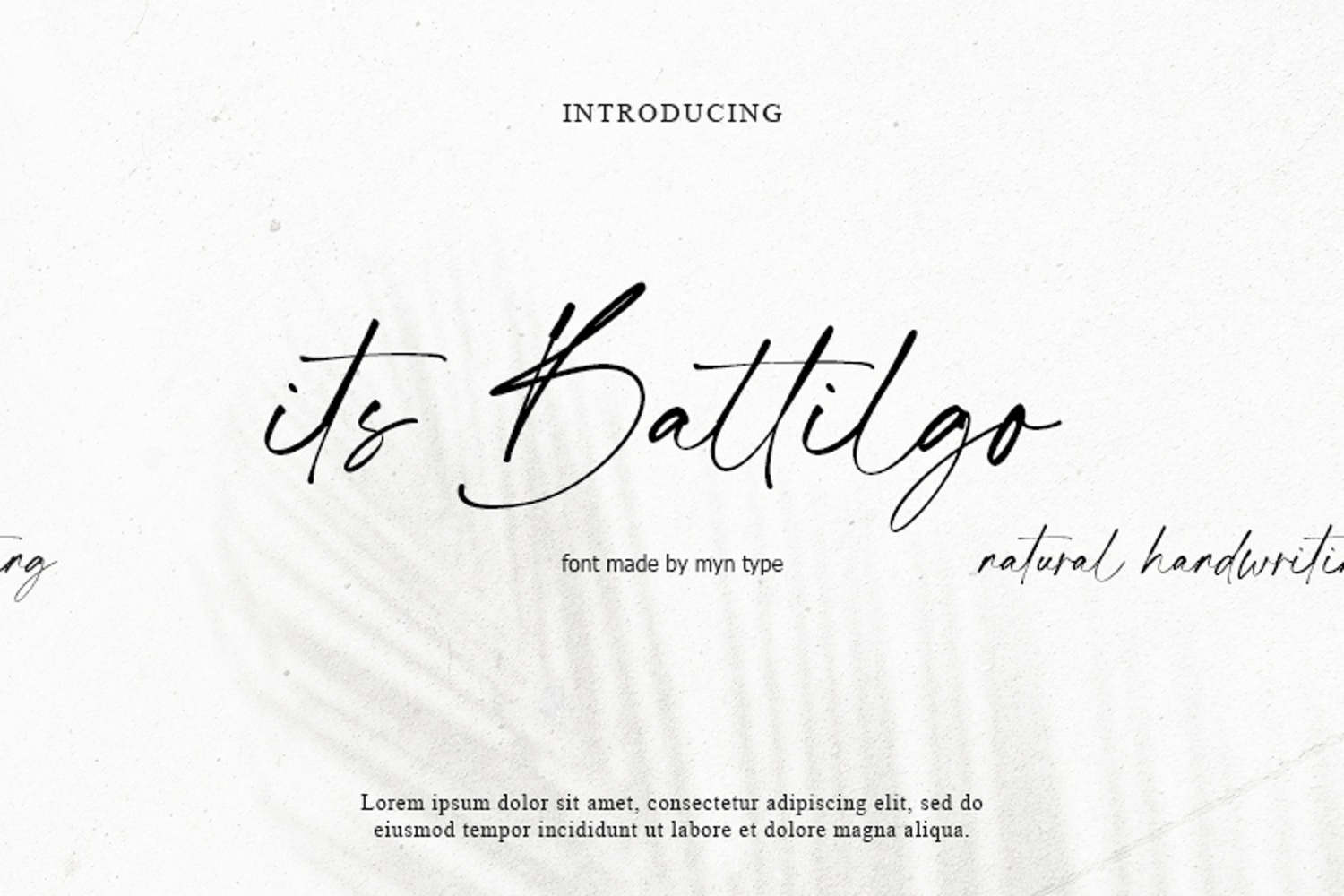
Its Battilgo - Handwritten Script
Its Battilgo
Its Battilgo is a natural handwritten script font inspired by modern calligraphy and casual font style.
This font is meticulously crafted by curves and natural strokes, making it perfect for wedding design, modern calligraphy logos, display product, invitations, title books, header, branding, social media, and more. Whether you're aiming for a modern, sophisticated look or a classic, romantic feel, this font adapts effortlessly to your vision.